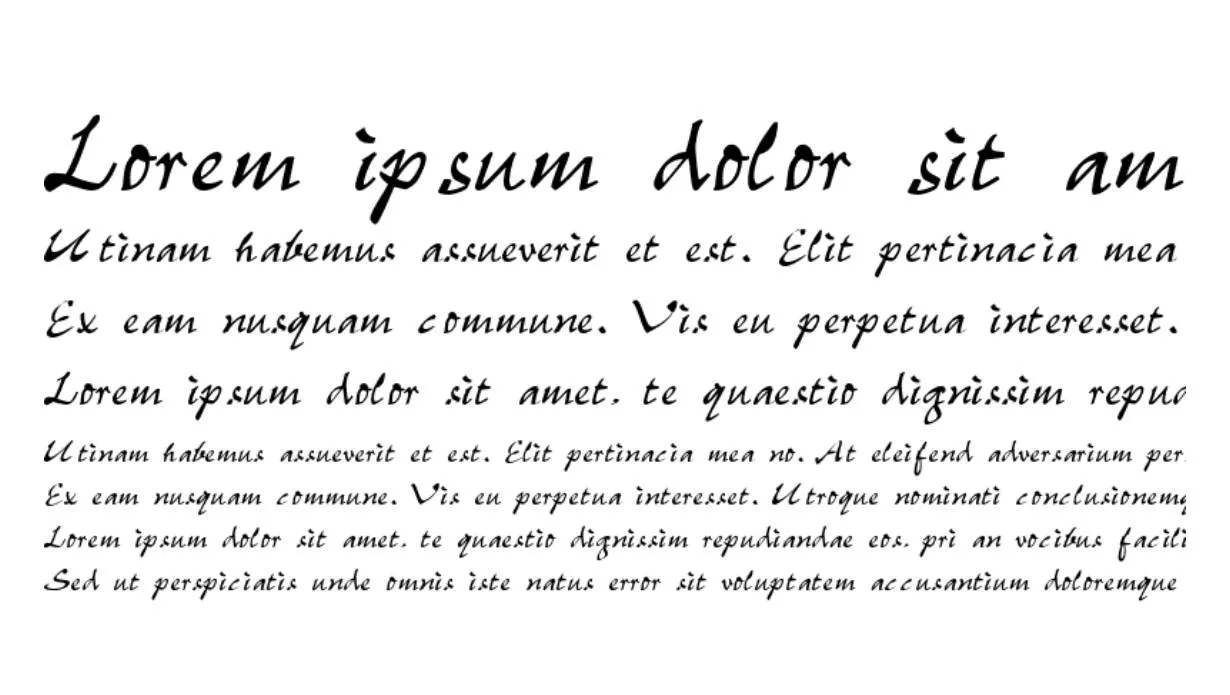
Peppers font emerges as the playful companion in the font repertoire, injecting a sense of whimsy and carefree spirit into your words. Tailored for party invitations, banners, and anything that craves a lighthearted touch, Peppers transforms your text into a celebration of joy and playfulness.
Each character dances across the page, creating a lively atmosphere that captivates the reader with its vibrant and cheerful energy.